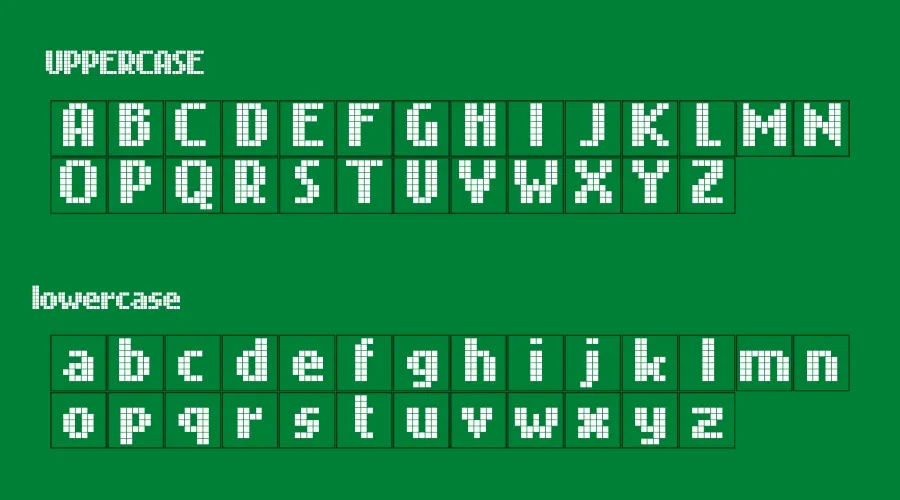
Nokian Font
About Nokian Font
Nokian Font is designed by Muhittin Gne it can be utilized for a wide run of applications such as site plans, branding, and advertising.
Blending this font can increment the coherence of your venture plan so you'll match it with the Miami bad habit text style which can be accommodating to you.
As an awesome font with a very unique style, it can be used for various purposes, including headlines, logos, branding, and more. This font is the perfect choice for all of your designs if you are seeking a modern, stylish font.